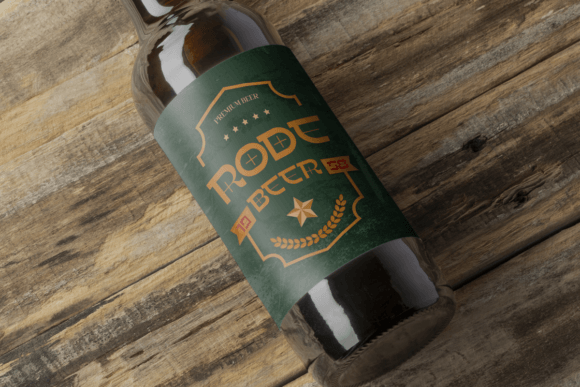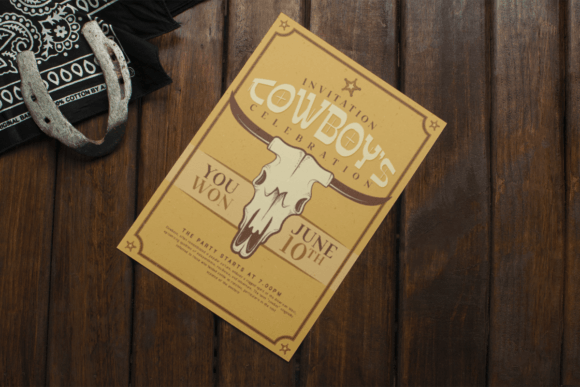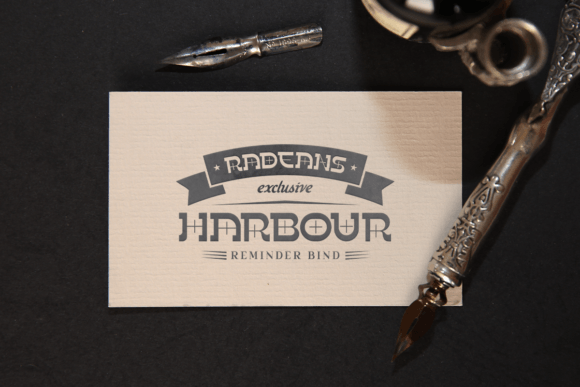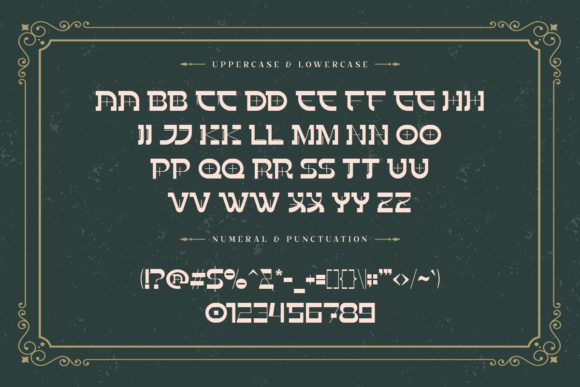
Introduction to Nortman Font
Nortman Display Unique Font is a striking and unconventional typeface designed to stand out in any creative project.
With its bold, geometric shapes and distinctive character, Nortman adds a modern and artistic flair to your designs Perfect for headlines, posters, logos, and branding, this font captures attention with its unique style and strong visual presence.